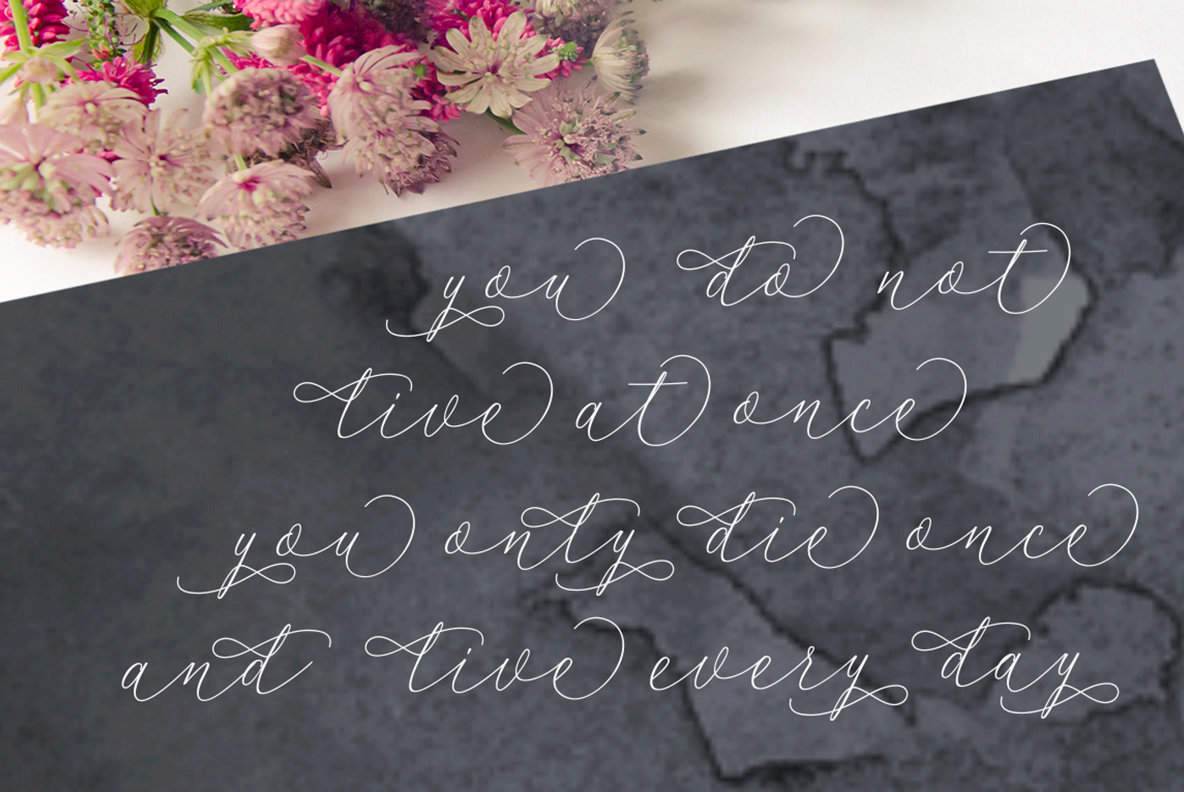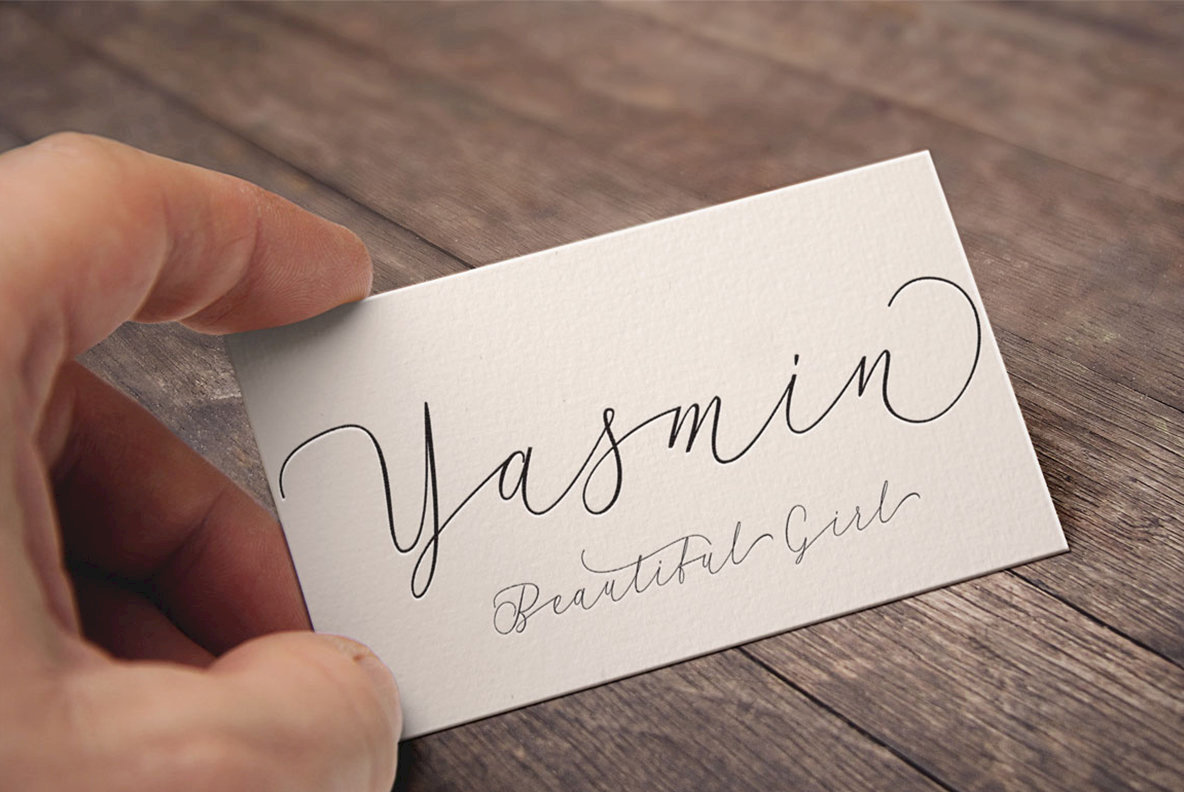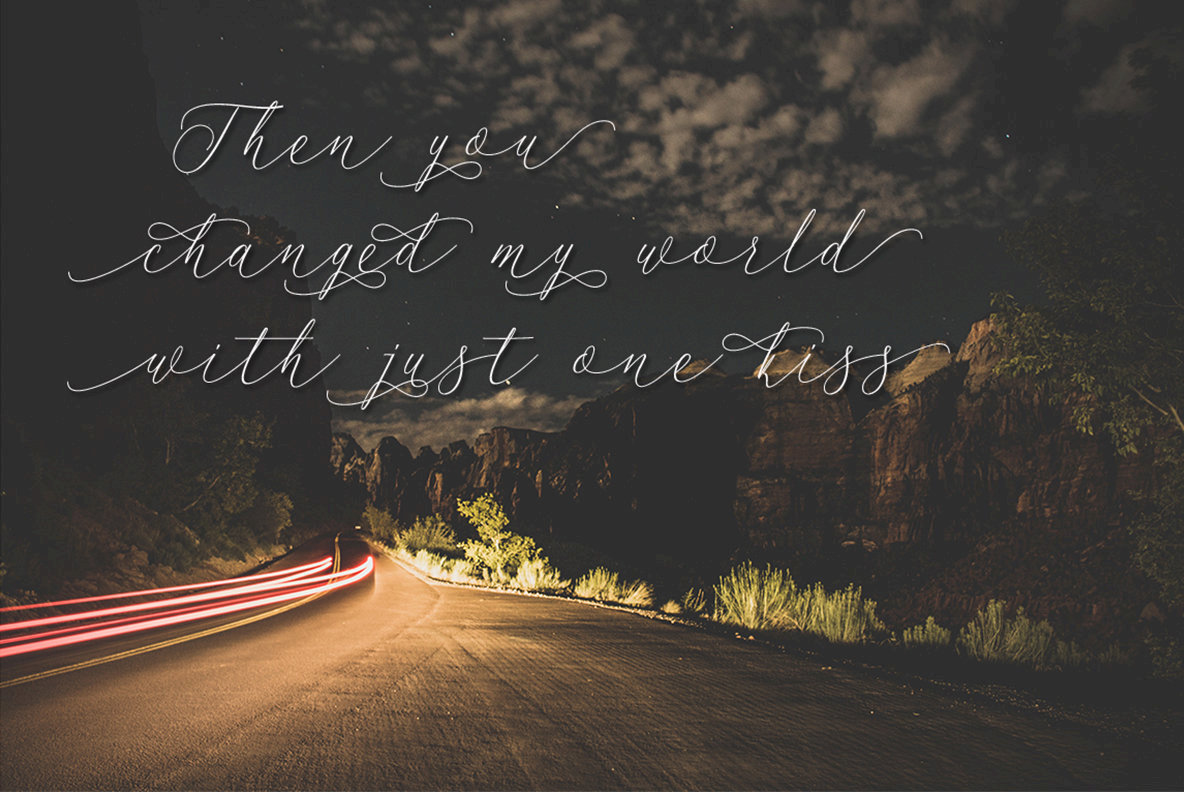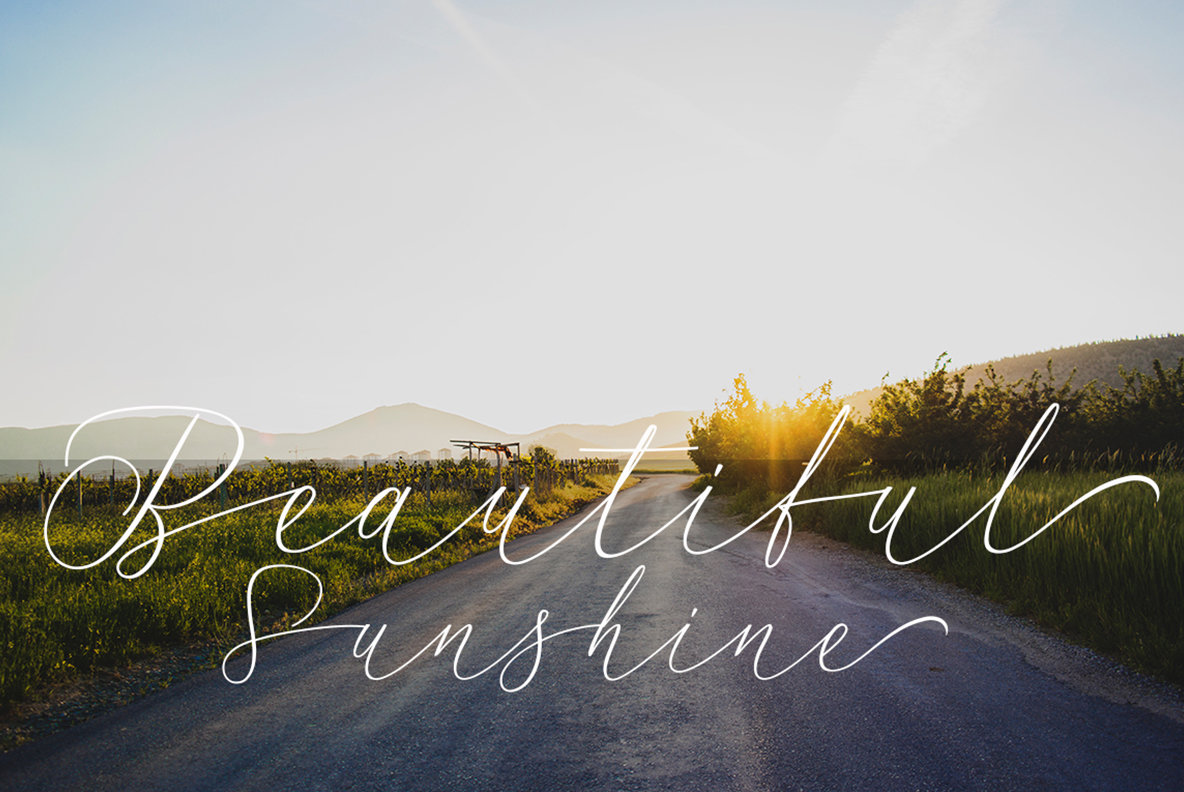
Sentosa Font
Sentosa
Sentosa offers a unique handwritten elegance with a distinctive monoline style. Its graceful letters make it ideal for invitations, signatures, blogs, and social media branding. Whether you're designing business cards or developing product brands, Sentosa ensures a refined and sophisticated look. Sentosa encompasses both uppercase and lowercase letters, numbers, and punctuation, making it versatile for various design applications. Unlock OpenType features using programs like Adobe Photoshop, Illustrator, Indesign, and more, or access them via character maps for creative expression.Sentosa: Elegant Handwritten Monoline Font